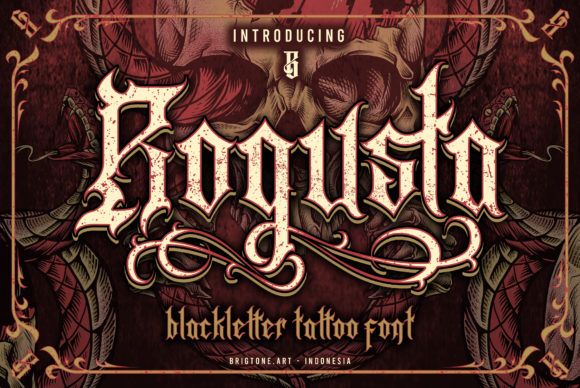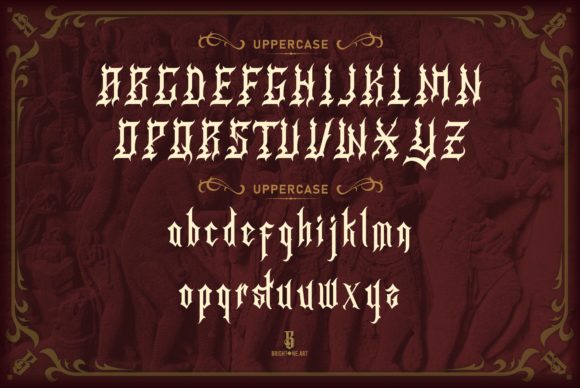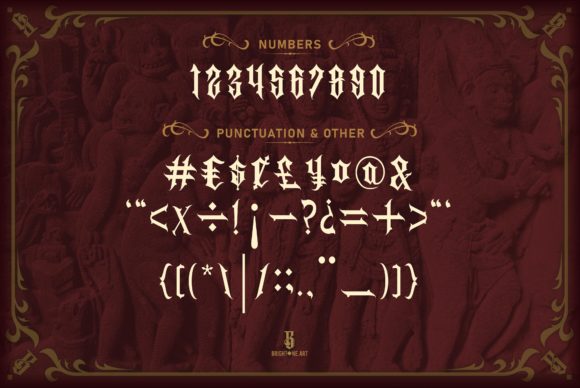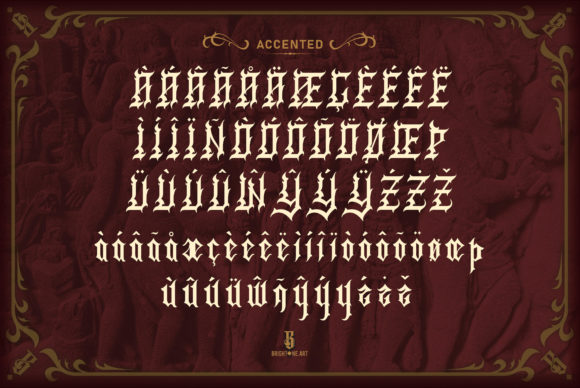
Rogusta Font: Bold Blackletter for Tattoo Designs & Creative Typography
About the Rogusta Font
Introducing the Rogusta Font, a beautifully crafted typeface designed to elevate your creative projects. Rogusta is a bold and authentic blackletter font. This font is neatly crafted and highly detailed. Add the assertive Rogusta to your formal designs and notice how they instantly stand out.
Rogusta’s strong, assertive personality makes it ideal for headlines, logos, and short, impactful text in branding materials and posters. Its intricate details shine in larger sizes, making it less suitable for body copy or UI elements where readability at smaller sizes is crucial. Avoid using it for extensive paragraphs; its bold forms can overwhelm the reader.
The font’s inherent boldness is best balanced by pairing it with a clean, modern sans-serif like Open Sans or Lato for body text. For a more traditional feel, a classic serif such as Garamond or Times New Roman provides a sophisticated contrast. Avoid pairing it with other highly decorative fonts which could create visual clutter.
Rogusta projects an air of authority and tradition, making it a powerful choice for brands emphasizing heritage, luxury, or a sense of established expertise. Consider it for projects needing a strong visual identity that commands attention.
Rogusta Font Usage Examples
Rogusta Font Example